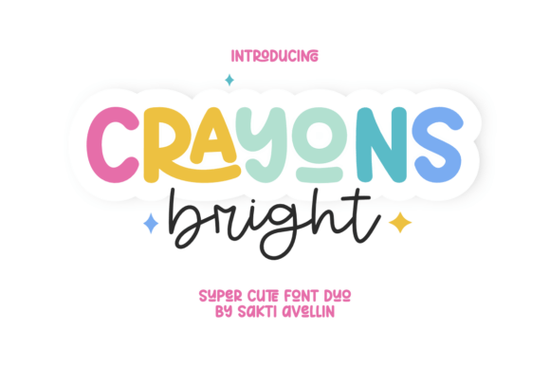
If you’ve been searching for a font that feels like sunshine and sidewalk chalk all in one, you might want to take a closer look at Crayons Bright Font. It’s not your average typeface it’s actually two fonts working together: one bold and rounded, the other light and scribbly. Together, they create a cheerful, balanced look that’s perfect for projects meant to spark joy think kids’ clothing labels, classroom posters, birthday invites, or even tote bags for summer camp.
What makes this pairing special is how naturally the two styles complement each other. The display font grabs attention with its chunky, friendly letters, while the script font adds a personal, hand-drawn touch. You don’t need to spend hours tweaking layouts they’re designed to work side by side without clashing. And because of their playful energy, they’re especially well-suited for anyone creating products for children, teachers, or families.
What kinds of projects does Crayons Bright work best for?
This font duo shines when used on anything that benefits from a lighthearted, colorful vibe. Here are some real-world examples:
- Kids’ apparel branding Whether you’re designing onesies, toddler tees, or backpack tags, the bold weight stands out clearly, while the script adds warmth.
- Educational printables Flashcards, reward charts, or classroom signs feel more inviting with this font combination.
- Birthday party decor Invitations, cupcake toppers, or photo booth signs come alive with its bouncy rhythm.
- DIY crafts and gifts Think mugs with encouraging quotes, vinyl decals for lunchboxes, or personalized notebooks.
- Small business packaging If you sell handmade soaps, cookies, or kids’ toys, this font helps your brand feel approachable and fun.
You might also consider pairing it with something more elegant if you’re blending themes say, for a baby shower that’s both sweet and sophisticated. Fonts like The Wedding Signature or Enchanted Bride can add contrast when layered thoughtfully.
How easy is it to use for beginners?
If you’re new to font pairing, here’s a tip: use the bold version for headlines or titles, and let the script handle subtitles, names, or short phrases. Avoid using the script for long paragraphs it’s meant to charm, not to read at length.
For crafters who work with heat transfer vinyl or sublimation, test print a few letters first. The thinner strokes in the script font may need slight thickening depending on your material. But overall, users report clean cuts and crisp prints without much fuss.
How does it compare to other playful script fonts?
It’s got more structure than something loose like Victory Swing, but still keeps that handmade feel. Compared to Lovely, which leans romantic, Crayons Bright feels more energetic and kid-focused. That doesn’t mean adults can’t enjoy it motivational quote prints, coffee mugs, or garden markers can all benefit from its upbeat personality.
Any tips for getting the most out of this font?
Absolutely. Here’s what experienced users suggest:
- Play with color Since the name includes “Bright,” don’t be afraid to use saturated hues. Try coral, mint, lemon yellow, or sky blue to match the font’s spirit.
- Add simple shapes Pair letters with doodle-style stars, clouds, or crayon icons to enhance the theme without overwhelming the design.
- Use white space generously Let the fonts breathe. Crowding them with too many elements dulls their charm.
- Mix weights intentionally Don’t just alternate randomly. Use bold for impact, script for emotion or emphasis.
One clever POD seller we spoke to uses the script font for customer names on custom shirts (“Emma’s Art Studio” or “Liam’s Lemonade Stand”) and the bold font for the rest of the text. It creates instant hierarchy and feels personalized without extra effort.
Whether you’re making classroom decor, launching a kids’ product line, or just adding whimsy to weekend crafts, Crayons Bright Font delivers personality without complexity. Sometimes, the right font isn’t about being fancy it’s about feeling like home, recess, or a birthday cake with too many candles. This one gets it right.